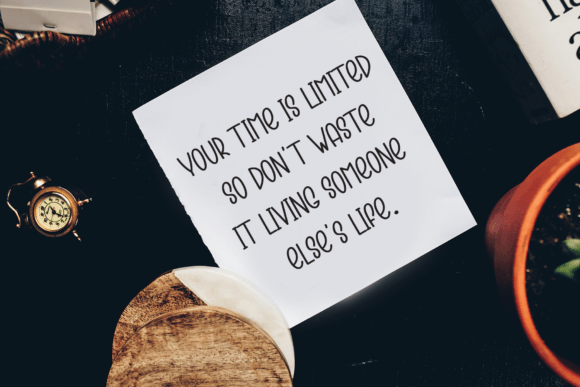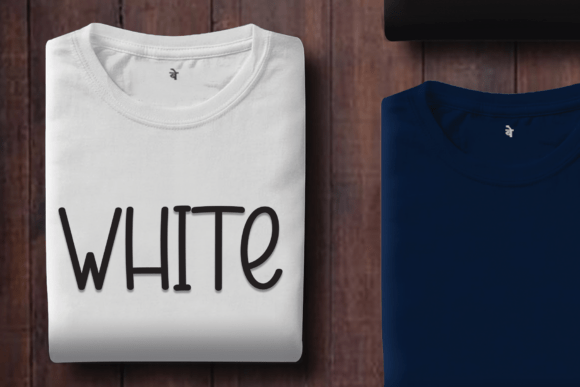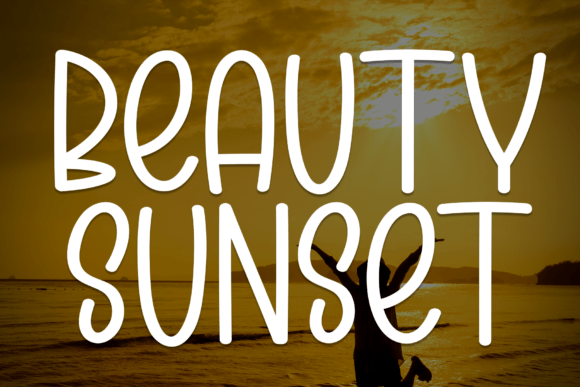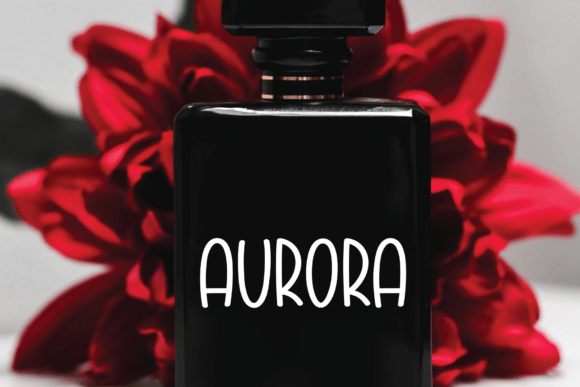
Beauty Sunset Font: Breezy Handwritten Script for Summer Branding
About the Beauty Sunset Font
The Beauty Sunset Font offers a perfect balance of form and function for your design needs. Beauty Sunset is a tall and slender handwritten font with a breezy, relaxed style. Its laid-back character makes it ideal for travel quotes, summer posters, casual branding, and beach-themed graphics that need a handwritten touch.
Beauty Sunset Font Usage Examples
Beauty Sunset Font Example